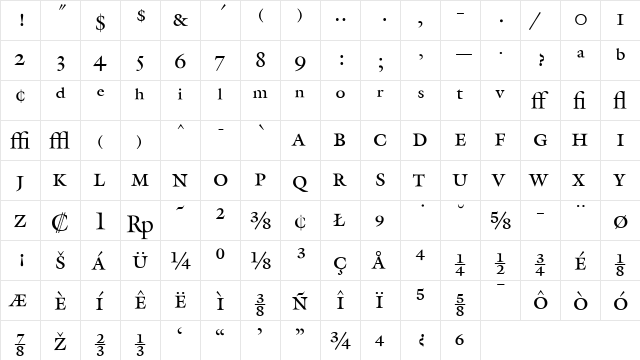
GalliardExpCC Regular
Design Context for GalliardExpCC Typeface
GalliardExpCC offers clean, dependable letterforms without strong stylistic allegiance, making it a practical choice for designers who need flexibility.
Pro Tip: Use GalliardExpCC in both headline and body roles to test its range before committing to a single application.